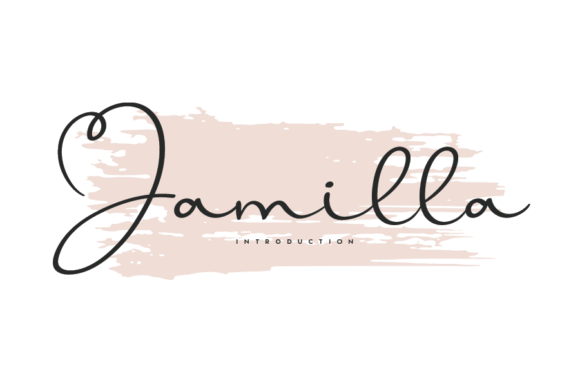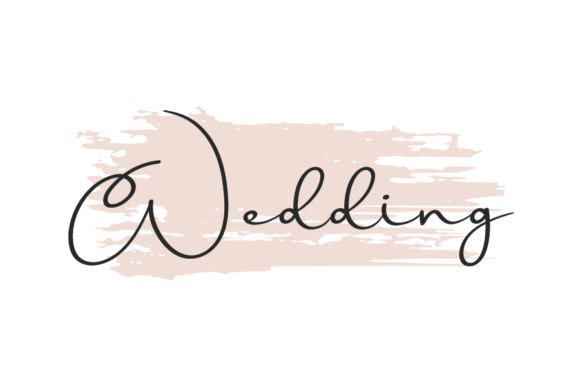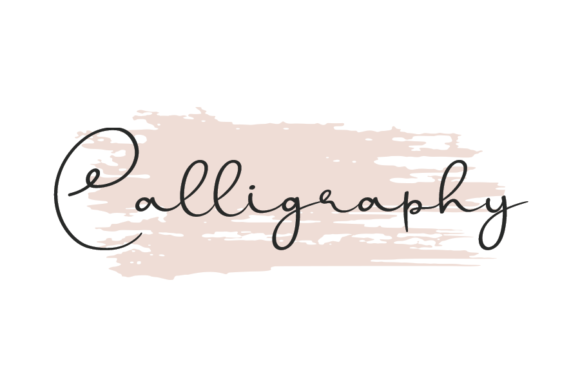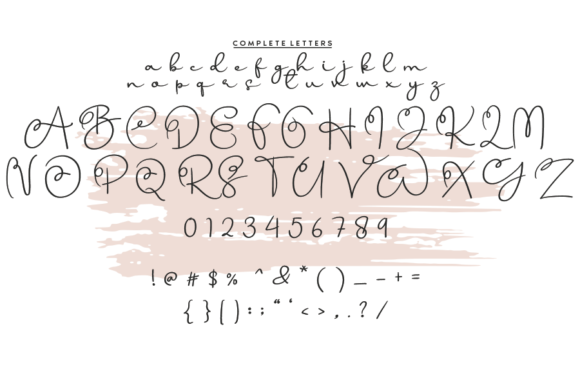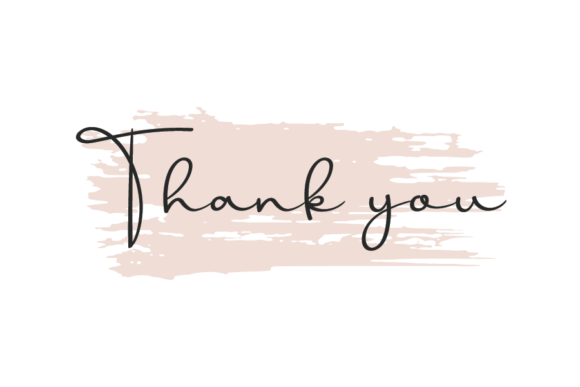
Jamilla Font
About Jamilla Font
Jamilla is a sweet, round lettered handwritten font. Its distinct and flowing style makes this font incredibly versatile, fitting a wide pool of designs.